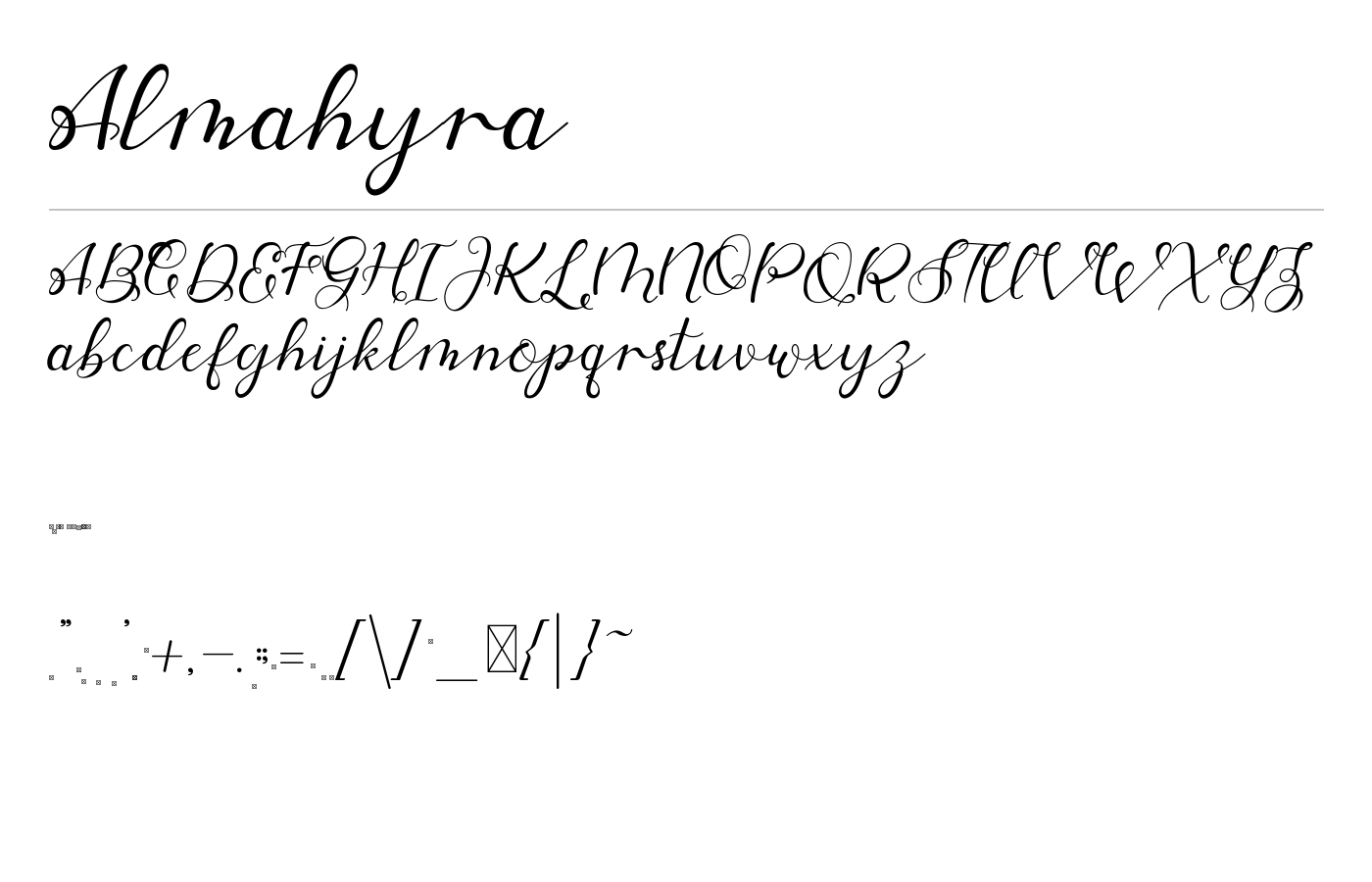
Almahyra is an elegant script font with delicate, flowing letterforms and fine stroke contrast that evoke a sense of sophistication and grace. Its slender, connected characters feature intricate loops and swashes, making it ideal for luxury branding, invitations, and artistic headlines where a refined and stylish touch is desired. This font brings a graceful, hand-written feel perfect for projects seeking a romantic or high-end aesthetic.
Almahyra Font
About Almahyra Font
| Font family | Almahyra Font |
| Designer | Yesie Erma Yunita |